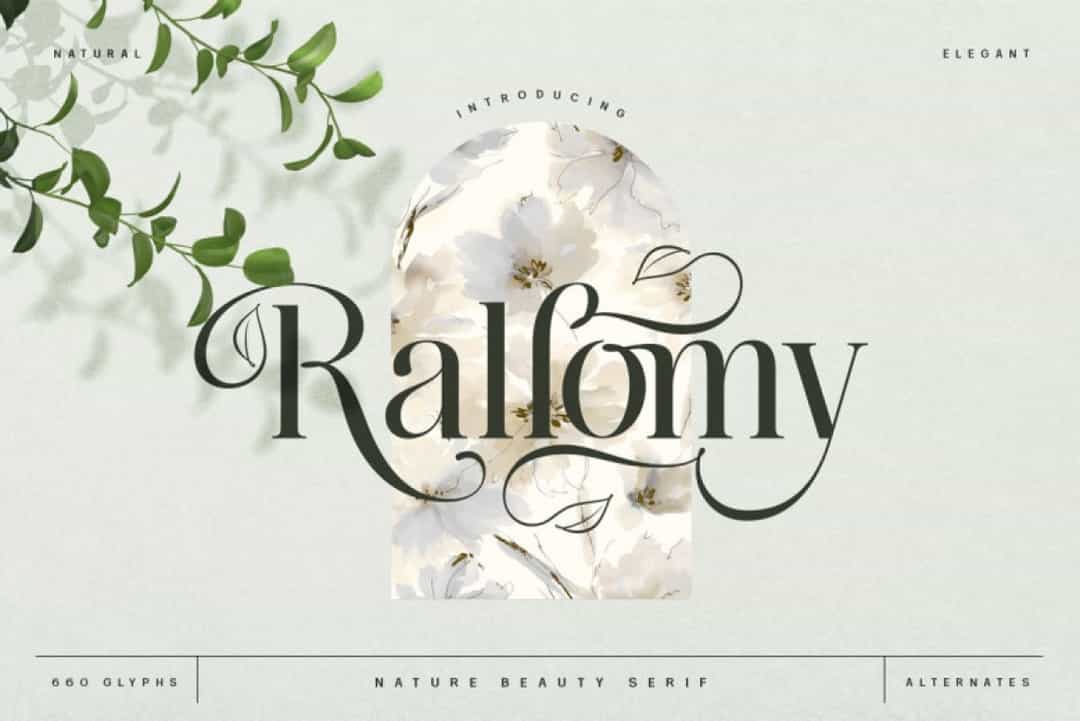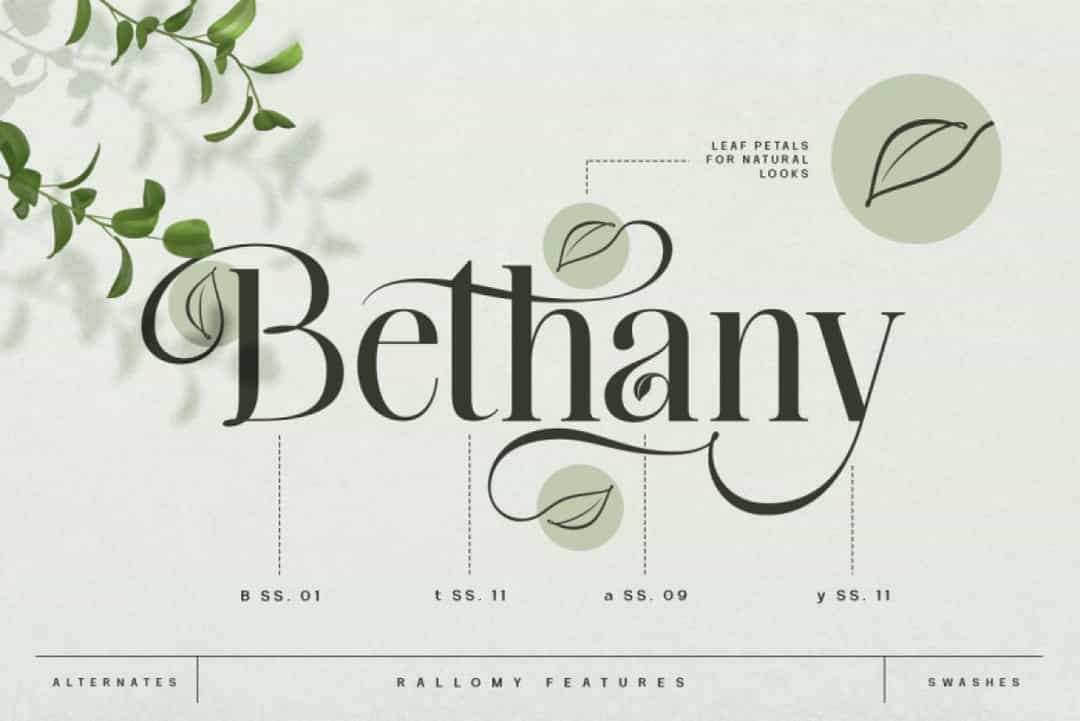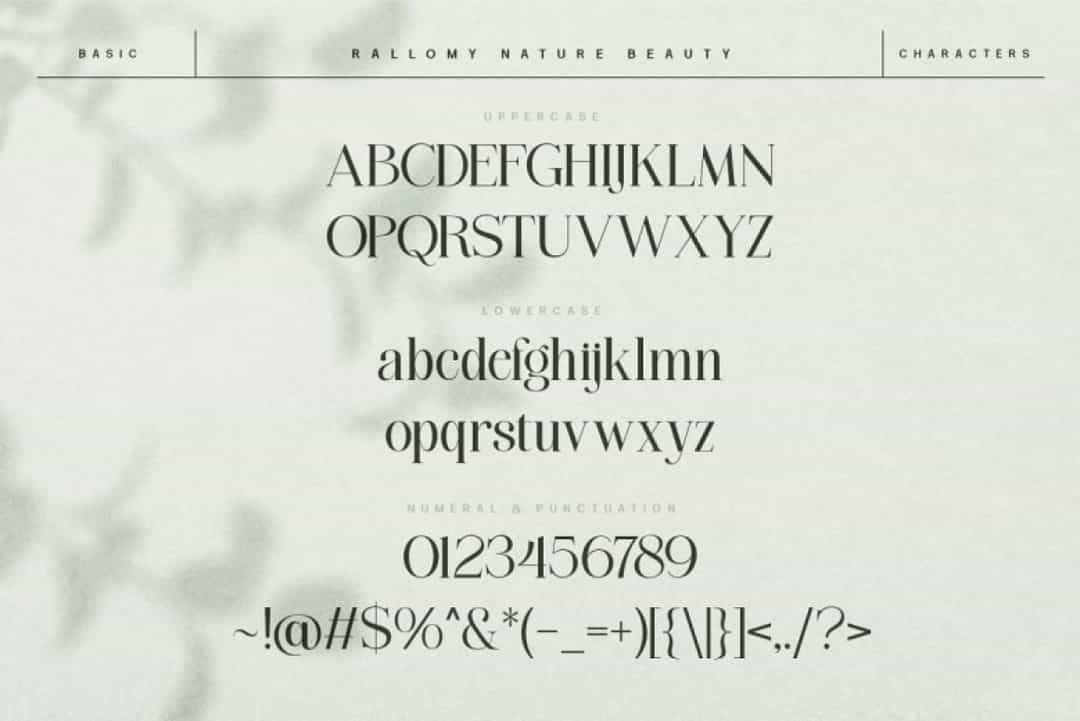
Rallomy is an elegant serif typeface inspired by nature’s beauty, featuring dynamic alternating swashes with leaf symbols as well as an attractive ligature system to guarantee harmonious combination of characters. Perfect for projects seeking to convey natural splendor.